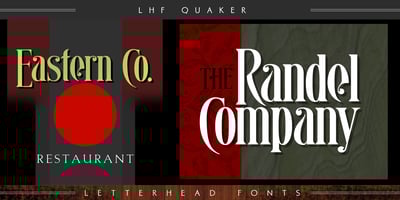
LHF Quaker Font Family was designed by John Studden and published by Letterhead Fonts. LHF Quaker contains 2 styles and family package options. Leave it John Studden to combine old world styling with clean modern lines. You’ve never seen anything quite like Quaker. Includes two fonts: Regular & Alternates. Also includes numbers, full punctuation and accents.